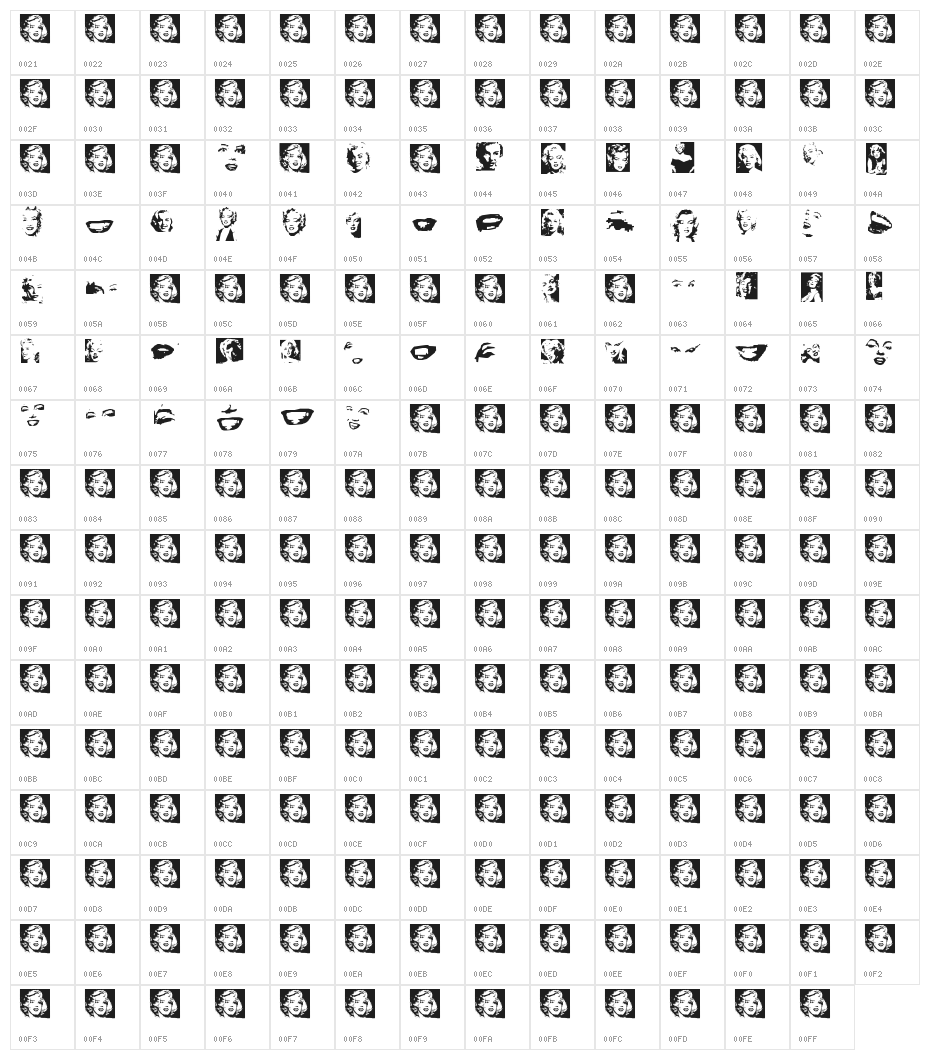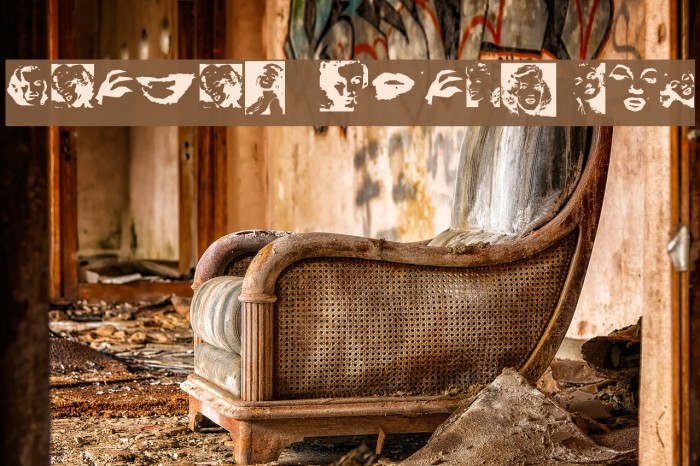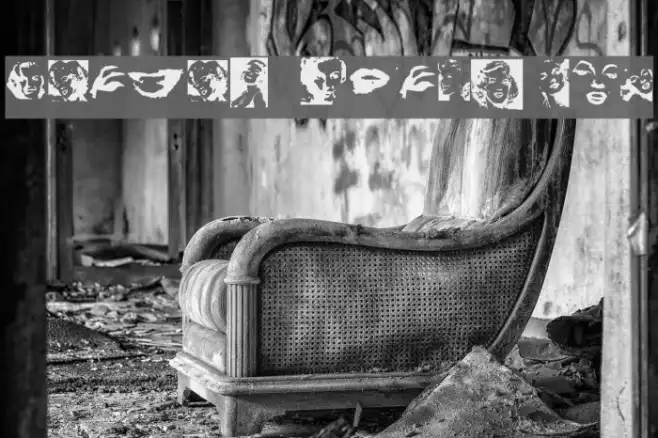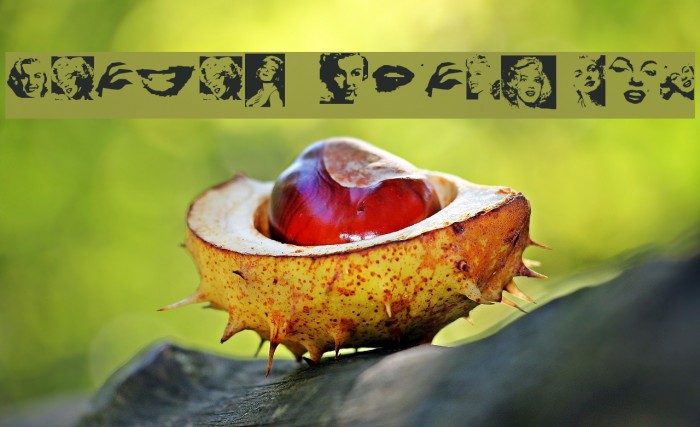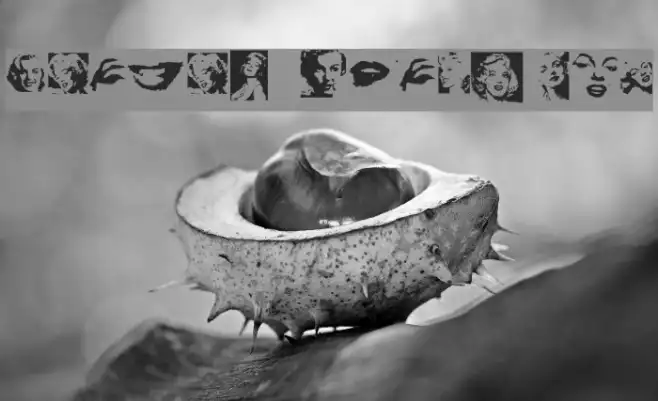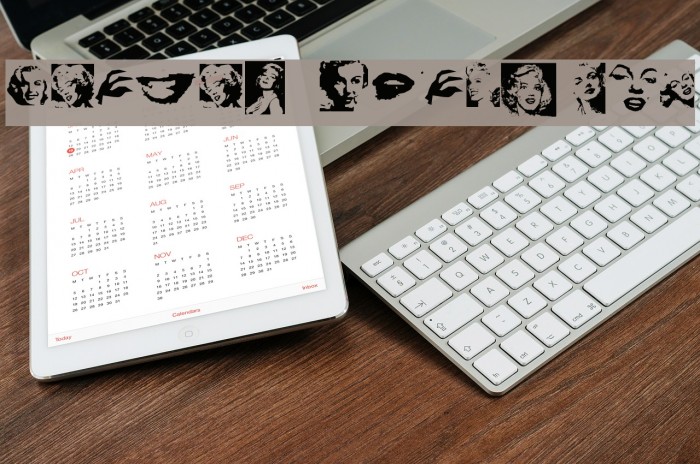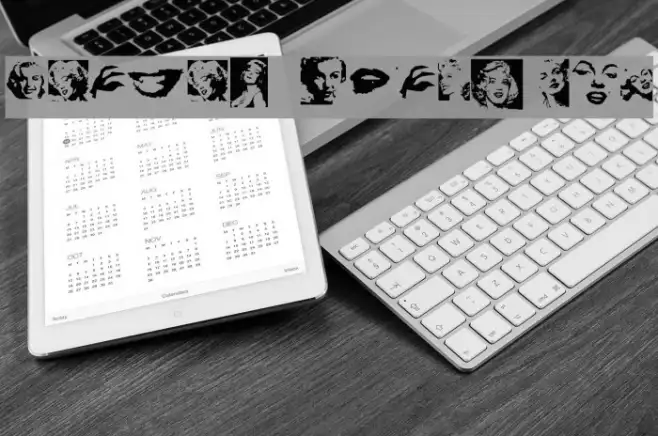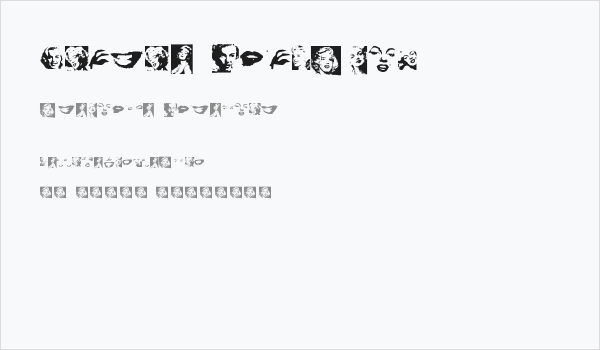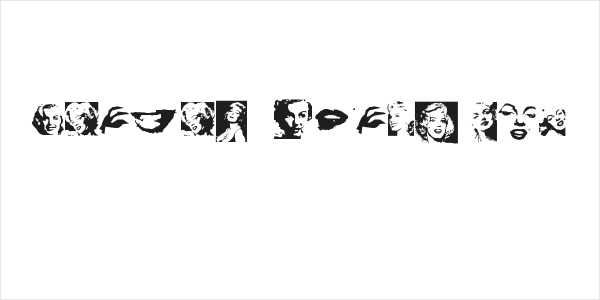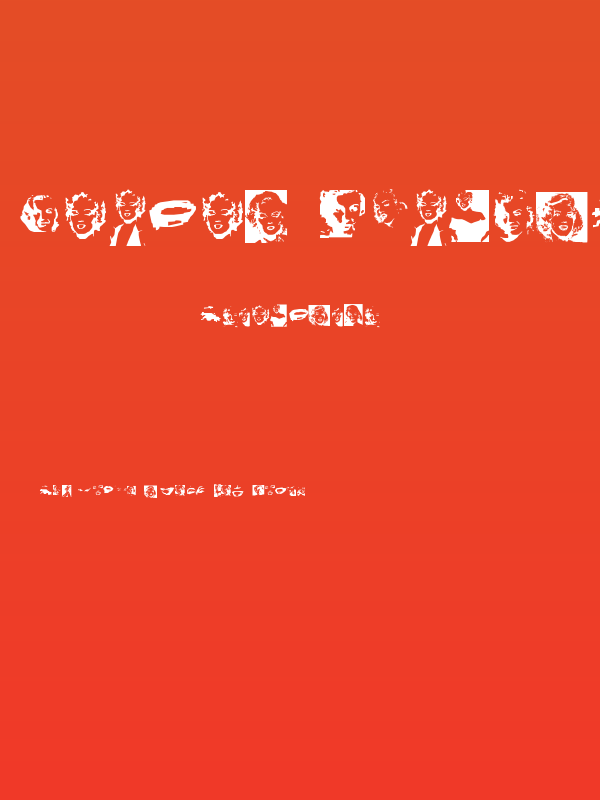
Monroe Dingbats Font
Monroe Dingbats Description
This font is a decorative collection of dingbats featuring stylized portraits and facial expressions. Each character is a unique representation, capturing a variety of emotions and iconic looks. The design is bold and graphic, with high contrast between the black and white elements, making each image stand out distinctly. The characters are square in shape, providing a uniform appearance across the set. This font is not intended for traditional text but rather for artistic and decorative purposes, adding a touch of vintage glamour to any project.
Overall StyleVintage
Use CaseDecorative elements, Artistic projects
Proposed ProjectsIdeal for creative projects such as posters, album covers, or any design requiring a vintage or iconic aesthetic.